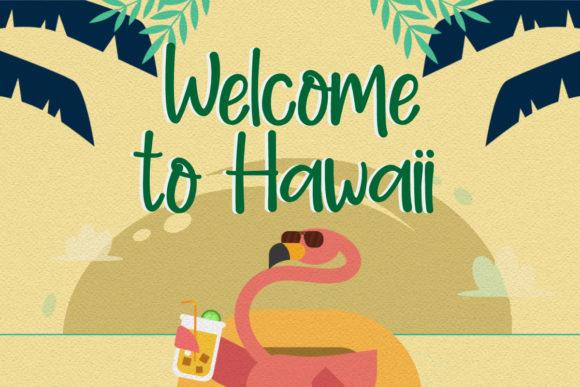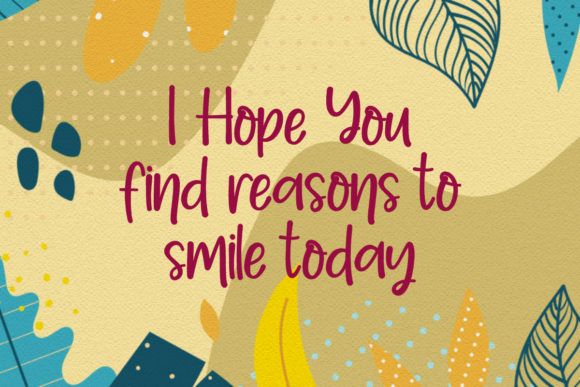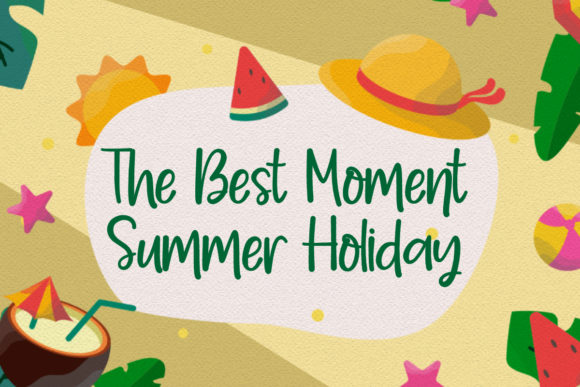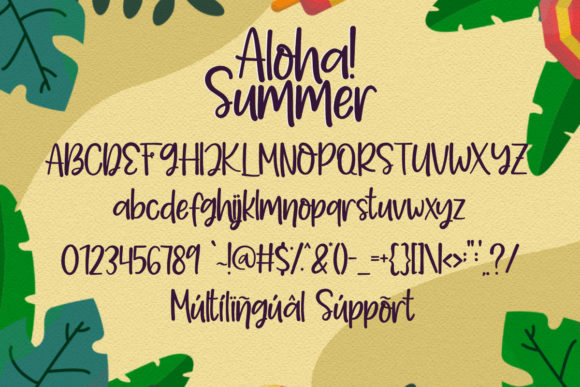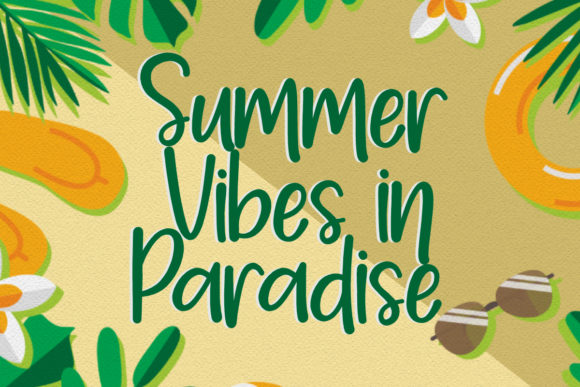
Aloha to Beautiful Typography: Discover the Charm of Aloha Summer Font
There’s something magical about the first day of summer – the warm sun on your skin, the sound of the ocean waves, and the feeling of endless possibilities. As a designer, you know that capturing the essence of a moment like this can be a challenge, but what if you had the perfect tool to help you convey that carefree spirit?
Enter Aloha Summer Font, a sweet and relaxed handwritten font that’s designed to become a true favorite among designers. With its neat and beautiful arrangement of letters, this typeface is perfect for adding a touch of personality to your designs. Whether you’re working on a formal project or a non-formal one, Aloha Summer Font is sure to elevate your creations and make them stand out.
Aloha Summer Font Key Features
- Unique Characteristics: The Aloha Summer Font features a unique blend of Hawaiian-inspired typography, with a relaxed and casual feel that evokes the spirit of summer.
- Language Support: The font supports a wide range of languages, including English, Spanish, French, German, Italian, Portuguese, and many others.
- Font Style: The font is available in regular, bold, and italic styles, offering a range of options for designers and typographers.
Aloha Summer Font Review
I recently had the chance to dive into the Aloha Summer Font, and I must say it’s a font that captures the carefree essence of summer. ✨ The playful, cursive style is perfect for creating a laid-back and inviting atmosphere in your designs. ✨ The font is also incredibly versatile, with a wide range of styles and weights to choose from, making it easy to find the perfect fit for your project.
However, as with any font, there are some limitations to consider. ⚠️ One of the main drawbacks is the font’s potential to come across as a bit too ‘trendy’ or ‘summer-y’ (yes, that’s a thing). If you’re looking for a more timeless or classic look, this font might not be the best choice. ⚠️ Additionally, some of the styles and weights can feel a bit inconsistent, which might make it harder to achieve a cohesive look.
- Playful, cursive style
- Wide range of styles and weights
- Perfect for creating a laid-back atmosphere
- Can feel a bit too ‘trendy’ or ‘summer-y’
- Some styles and weights can feel inconsistent
Overall, I think the Aloha Summer Font is a great choice for anyone looking to add a bit of summer magic to their designs. While it may not be the most timeless option, it’s perfect for creating a fun and inviting atmosphere. With a little bit of creativity and experimentation, I’m confident you can achieve some amazing results with this font.
The Aloha Summer Font is perfect for creating graphics and documents that evoke a sense of summer and relaxation. Some common use cases include:
- Social media posts and graphics
- Summer-themed invitations and flyers
- Beach and travel-inspired graphics
- Summer-themed presentations and documents
Alternatives to Aloha Summer Font
Great Vibes Font is a beautiful, handwritten script font that is perfect for creating a carefree and summer-inspired design. It features a mix of elegance and playfulness, making it ideal for branding, invitations, and social media graphics. When to use: Create a relaxed and casual atmosphere for your design. Comparison to Aloha Summer Font: Great Vibes Font has a more elegant and refined look compared to Aloha Summer Font, which has a more casual and laid-back feel.
Pacifico Font is a modern script font that exudes a sense of relaxation and tranquility. It features a beautiful, flowing design that is perfect for creating a summer-inspired design. When to use: Create a calm and soothing atmosphere for your design. Comparison to Aloha Summer Font: Pacifico Font has a more sophisticated and refined look compared to Aloha Summer Font, which has a more playful and casual feel.